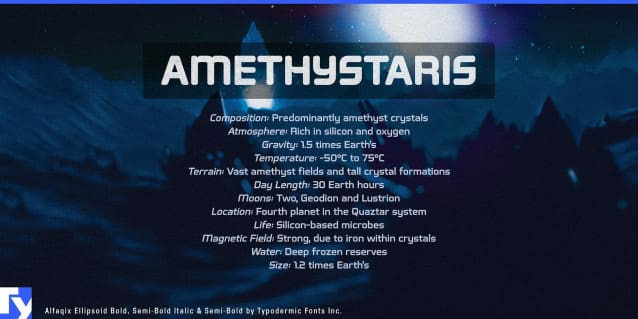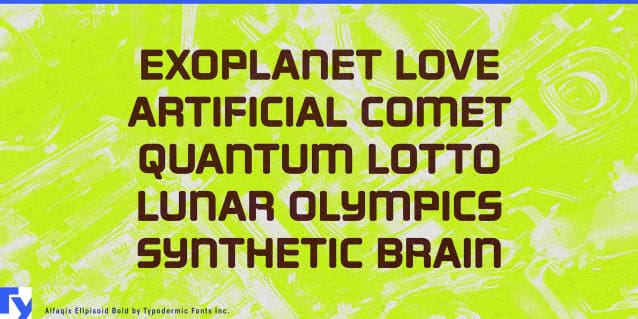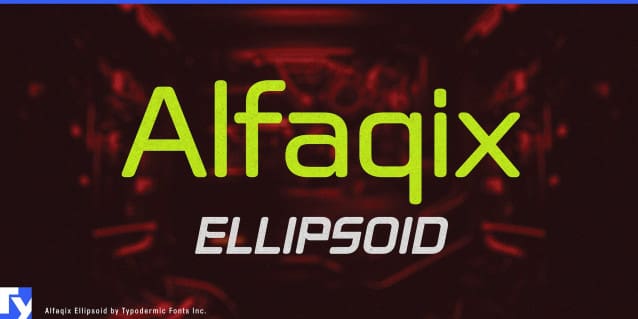
Alfaqix Ellipsoid Font Family
Alfaqix Ellipsoid Font Family, the typeface from Typodermic Fonts that revives the Y2K aesthetic with a post-technological twist. With its retro-futurist style, Alfaqix Ellipsoid is a nod to the nostalgic cool of Y2K designs. The rounded stroke ends add a soft counterpoint to the typeface’s geometric angles, creating a techno style that’s both cutting-edge and familiar.
Available in four weights—Light, Regular, SemiBold, and Bold—each with accompanying italics, Alfaqix Ellipsoid is an adaptable asset for a variety of design projects. This typeface seamlessly complements themes ranging from digital-abstract art, high-tech product design, to futuristic brand identities, and cyber-themed web designs. Redefine your creative narratives with AlfaqixEllipsoid—a fusion of retro-cool and the forward-thinking design. Experience the versatility of yesteryear’s future, today.